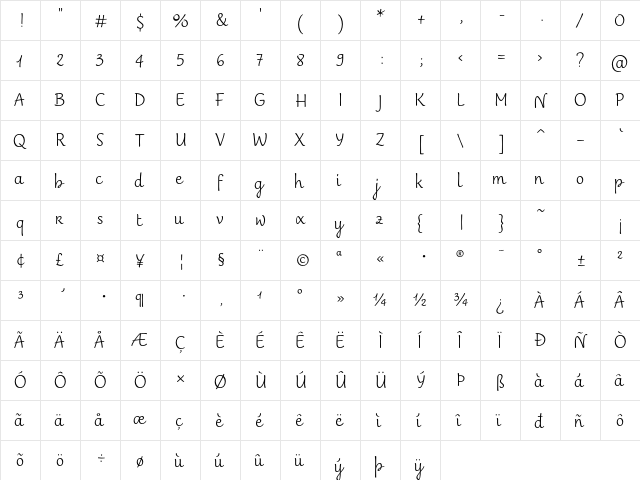
Scritta Nuova Regular
| Foundry | Elena Albertoni | AnatoleType |
| Designer | Elena Albertoni |
Design Context for Scritta Nuova Typeface
Scritta Nuova offers clean, dependable letterforms without strong stylistic allegiance, making it a practical choice for designers who need flexibility.